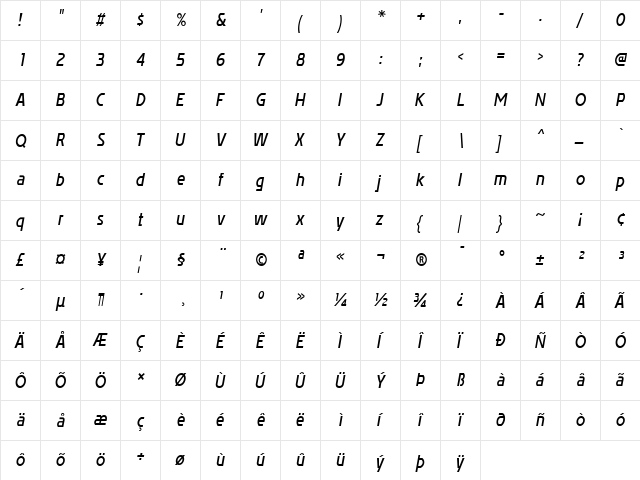
Affluent Demibold Italic
Design Context for Affluent Demibold Typeface
Affluent Demibold is a composed and adaptable typeface that performs quietly and consistently across a wide range of design contexts. The dynamic lean of this cut emphasises speed and emphasis in any layout. The heavy weight commands attention and anchors typographic hierarchies.
Pro Tip: Use Affluent Demibold for emphasis, pull quotes, and subheadings where its slanted energy can add rhythm to the layout.